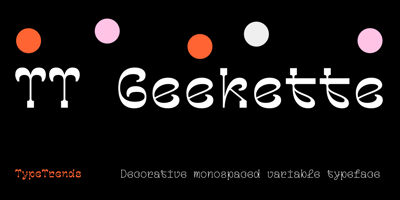
Looking to imbue your designs with a unique blend of modern tech flair and distinct personality? TT Geekette Font Free Download offers an exciting opportunity to explore a typeface designed for those who appreciate both functionality and character. It's crucial to remember, however, that while a TT Geekette Font Free Download might be available for personal and testing purposes, a commercial license is required for any professional or revenue-generating projects. This ensures legal compliance and provides essential support to the talented font designers.
The TT Geekette Font is exceptionally well-suited for projects that demand a clean, precise, and subtly unconventional aesthetic often associated with digital interfaces or coding. Its unique blend of monospaced elements and thoughtful humanist touches makes it an excellent choice for UI/UX design, app interfaces, and code editors. It's ideal for tech company branding, programming tutorials, and data visualization dashboards where clarity and a distinct yet functional style are paramount. Furthermore, consider TT Geekette Font for gaming interfaces, innovative product design, and any creative project aiming to evoke a sense of modern precision, digital craftsmanship, and a touch of intelligent charm.
What makes the TT Geekette Font so exciting is its remarkable ability to marry the technical precision of monospaced fonts with a more human, approachable feel. It often features carefully balanced letterforms and subtle quirks that give it a unique personality without sacrificing legibility. This characteristic allows it to communicate a sense of reliability, innovation, and modern sophistication, making your message resonate with an audience that values both form and function. It's a font that doesn't just display text; it enhances the user's interaction, adding a layer of controlled artistry and contemporary appeal to any creative endeavor. Its distinctive aesthetic ensures your work will appear intelligent, polished, and highly effective.
The TT Geekette Font family typically boasts a comprehensive range of weights to maximize its utility for various coding and design needs. You'll often find a wide selection, from Thin and Light to Regular, Medium, SemiBold, and Bold, usually accompanied by corresponding italic styles. More advanced versions might also include specific alternates for frequently confused characters (like '0' and 'O', 'l' and '1') and specialized coding ligatures to enhance clarity for programmers, providing unparalleled flexibility for developers and designers alike.